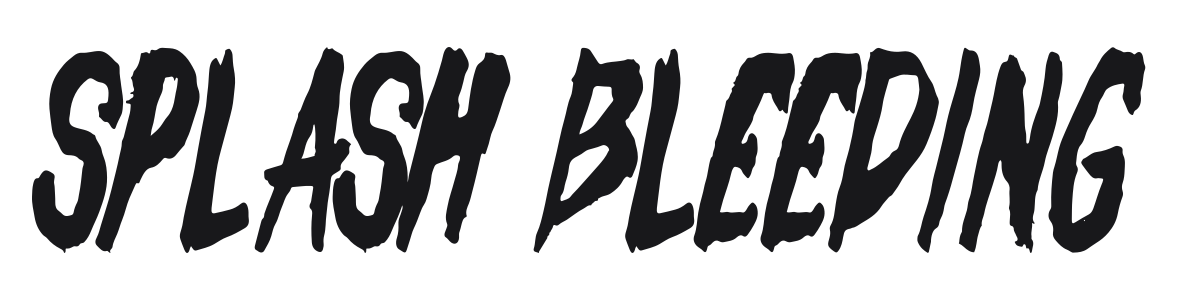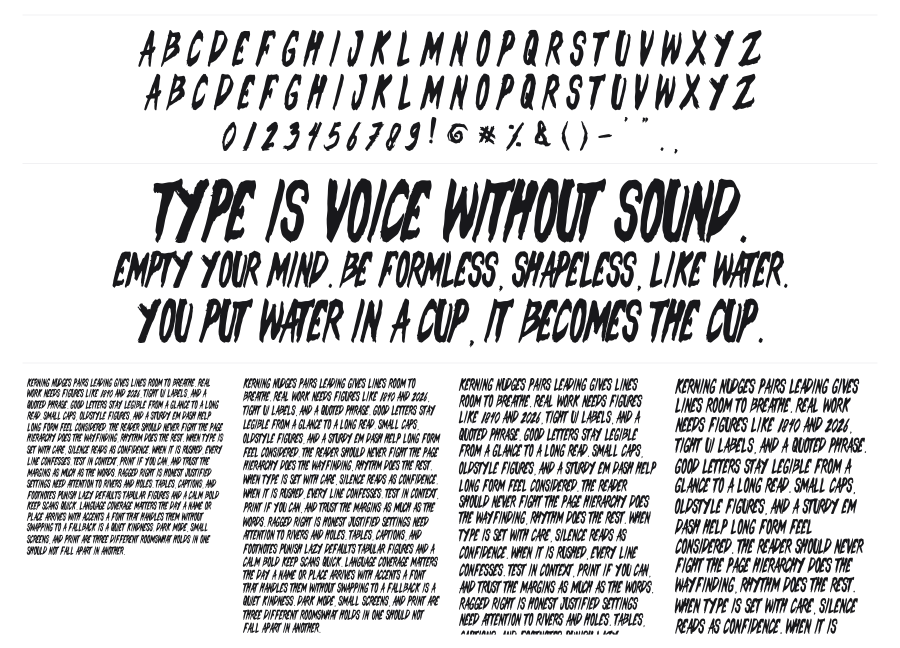
Splash Bleeding
Splash Bleeding is a bold, oblique display font with heavy ink-bleed distressing that gives every character a raw, battle-worn edge. The steep italic angle and jagged stroke texture push it firmly into horror, metal, and underground territory. At large sizes the erosion reads as intentional and expressive rather than messy.